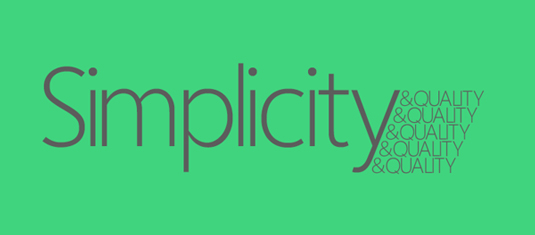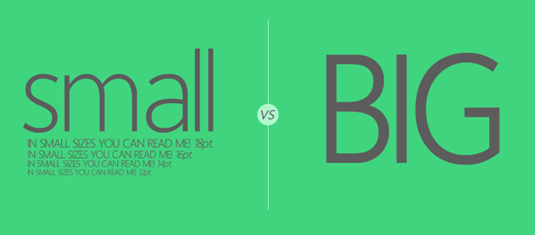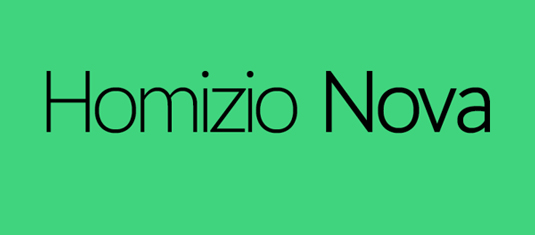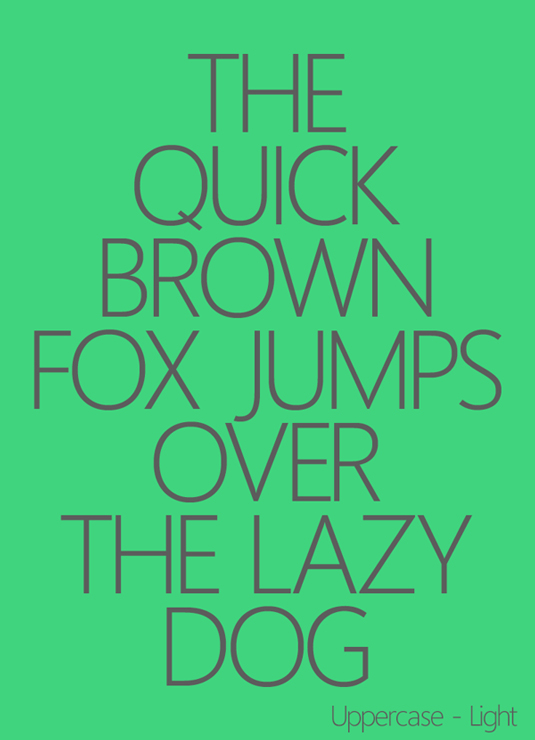
Font of the day: Homizio Nova
Every day we showcase the best fonts on the web. Today it's Homizio Nova by Álvaro Thomáz, which is free to download!
Homizio Nova by Álvaro Thomáz
Today's font of choice, Homizio Nova, was created by type designer Álvaro Thomáz. With a passion for fonts, especially sans-serif, Thomáz generously offers his simple, quality design free for both personal and commercial use.